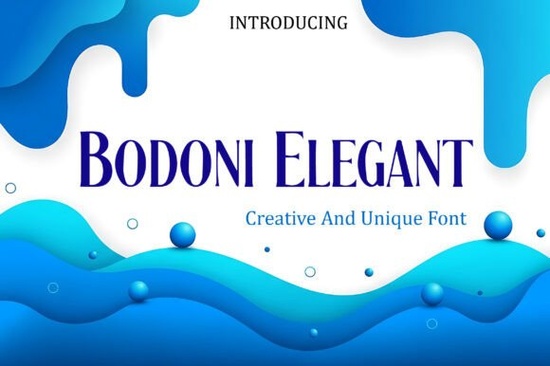
The Bodoni Elegant font takes the classic proportions of the Bodoni family and gives them a modern, liquid-smooth twist. Its sharp, needle-thin serifs contrast against deep vertical strokes, creating a typeface that looks polished and commanding. If you need a serif font that feels both timeless and current, this one is worth a closer look. It's built for designers, small business owners, and anyone who wants their typography to carry weight without looking old-fashioned.
What Makes Bodoni Elegant Different from Other Serif Fonts?
Most Bodoni-inspired typefaces stay close to the original 18th-century design. Bodoni Elegant keeps those high-contrast proportions but adds a smoother, more fluid quality to each letterform. The result is a font that reads as refined but never stiff.
The thin serifs and thick strokes create a strong contrast the defining trait of the Bodoni style. But unlike some traditional versions, this one feels designed for both digital screens and large-format prints. You get the same commanding presence on a website hero banner as you do on a printed poster.
If you've explored other modern serifs like this fluid alternative, you'll notice Bodoni Elegant leans more heavily into vertical emphasis and sharp contrast. It has a different mood more architectural, more editorial.
Where Does This Font Work Best?
Bodoni Elegant is a display typeface. It's designed to be seen, not buried in a paragraph of body copy. Here's where it really performs:
- Website headers and hero sections the tall, contrasted letterforms grab attention right away.
- Billboard and signage design large-scale formats let the font's architecture show its full character.
- Logo design it works as a standalone logotype for brands that want to look established but not stuffy.
- Tech startup branding the modern edge pairs well with innovation-focused companies.
- Creative agency portfolios it signals taste and confidence without overexplaining.
- Contemporary art gallery materials the balance between classic and modern fits right in.
For print-on-demand sellers, this font adds a premium feel to posters, apparel mockups, and packaging designs. It reads as high-end, which helps your products stand out in a competitive marketplace.
How Do You Pair It with Other Typefaces?
One of the strengths of Bodoni Elegant is how well it works alongside other fonts. The key is to contrast in style, not just weight.
A geometric sans-serif makes a natural companion. The clean lines of a sans-serif balance the drama of the high-contrast serif, creating a modern, editorial feel. You could also try pairing it with a bolder serif choice for layered heading treatments that need extra impact.
Here are a few pairing directions to try:
- Bodoni Elegant + a clean sans-serif classic editorial style, works great for magazines and websites.
- Bodoni Elegant + a handwritten script sophisticated meets approachable, good for invitations or lifestyle branding.
- Bodoni Elegant on its own let the typeface do all the work as a powerful, standalone display font.
When using it for headings, keep body text in a simpler typeface. The contrast between a dramatic serif header and a readable sans-serif paragraph creates a natural visual hierarchy that guides the reader's eye down the page.
Who Is This Font a Good Fit For?
Bodoni Elegant serves a wide range of creative professionals:
- Graphic designers working on branding, editorial layouts, or poster design.
- Small business owners who want their visual identity to feel polished and professional.
- Print-on-demand sellers looking for standout typography on products.
- Web designers building hero sections or landing pages that need strong typographic presence.
- Creative hobbyists making wedding invitations, art prints, or social media graphics.
It's a typeface that rewards bold, intentional use. If you lean toward minimal design, Bodoni Elegant can serve as the single dominant visual element. If you prefer more layered compositions, it anchors a layout with authority. You can find more options in our serif font collection if you want to compare styles before deciding.
Things to Check Before You Start Using It
Before you drop this font into your next project, run through this quick checklist:
- Test at your target size display fonts look very different at 24 pixels versus 240 pixels. Always preview in context.
- Pair intentionally choose a complementary body font that doesn't compete for attention.
- Mind the spacing high-contrast serif fonts often benefit from slightly increased letter-spacing, especially at smaller sizes.
- Use it where it counts save it for headlines, logos, and hero text rather than running body copy.